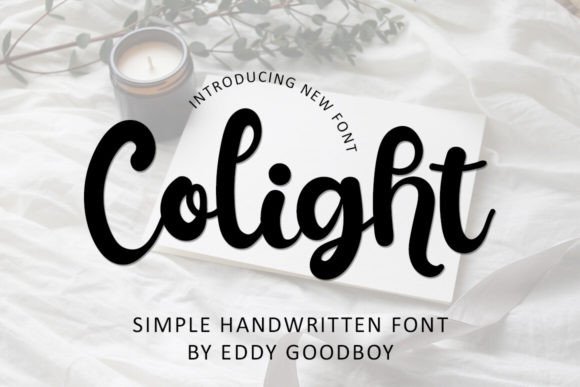
Colight Font: Elevate Your Designs with Elegance and Sophistication
In the realm of typography, a font can make or break the visual appeal of a design. When it comes to creating a lasting impression, the right font can elevate your project from ordinary to extraordinary. This is where Colight Font comes into play – a spellbinding typeface that effortlessly infuses elegance and refinement into your designs. In this article, we’ll explore the world of Colight Font, its features, and how it can be the perfect addition to your creative arsenal.
The Essence of Colight Font
Colight Font is a meticulously crafted typeface that exudes sophistication and poise. Its elegant lines, refined curves, and balanced proportions make it an ideal selection for imparting a personalized touch to your creations. Whether you’re a designer, artist, or simply a creative enthusiast, Colight Font is designed to help you produce stunning visual content that captivates your audience.
Key Features of Colight Font
- Elegant and Refined Design: Colight Font boasts a sleek and sophisticated design that adds a touch of luxury to your projects.
- Versatile: This font is perfect for a wide range of applications, from wedding invitations and branding ventures to social media posts and more.
- Easy to Read: Colight Font features clear and legible lettering, ensuring that your message is conveyed with clarity and precision.
- Highly Customizable: With Colight Font, you can experiment with various font sizes, colors, and styles to create a unique look that suits your brand or project.
Applications of Colight Font
Colight Font shines in an array of applications, making it a versatile addition to your typography collection. Here are some of the ways you can utilize this stunning font:
Wedding Invitations and Stationery
Create enchanting wedding invitations, save-the-date cards, and other stationery items with Colight Font. Its elegant design and refined feel make it perfect for formal events and celebrations.
Branding and Logo Design
Develop iconic branding ventures with Colight Font. Its sophisticated design and versatility make it an excellent choice for creating logos, business cards, and other marketing materials.
Social Media and Digital Content
Curate captivating social media posts, blog headers, and other digital content with Colight Font. Its clear legibility and aesthetic appeal make it perfect for online platforms.
Why Choose Colight Font?
With so many fonts available, why should you choose Colight Font? Here are some compelling reasons:
Unique and Memorable
Colight Font offers a distinctive and memorable design that sets it apart from other fonts. Its elegant lines and refined curves create a lasting impression on your audience.
Time-Saving and Efficient
With Colight Font, you can save time and effort in creating visually appealing designs. Its versatility and customizability make it easy to adapt to various design projects.
Professional-Grade Quality
Colight Font is crafted with professional-grade quality, ensuring that your designs look polished and sophisticated.
Tips and Tricks for Using Colight Font
To get the most out of Colight Font, here are some tips and tricks:
Experiment with Font Sizes and Styles
Don’t be afraid to experiment with different font sizes, styles, and colors to create a unique look that suits your project.
Pair with Other Fonts
Colight Font pairs well with other fonts, so feel free to combine it with complementary typefaces to create visual interest.
Use in Combination with Images and Graphics
Colight Font looks stunning when paired with images and graphics. Experiment with different combinations to create visually appealing designs.
In conclusion, Colight Font is a spellbinding typeface that effortlessly infuses elegance and refinement into your designs. Its versatility, customizability, and professional-grade quality make it an ideal selection for imparting a personalized touch to your creations. Whether you’re designing wedding invitations, branding ventures, or social media posts, Colight Font is sure to elevate your project to new heights. So why wait? Discover the magic of Colight Font and take your designs to the next level.